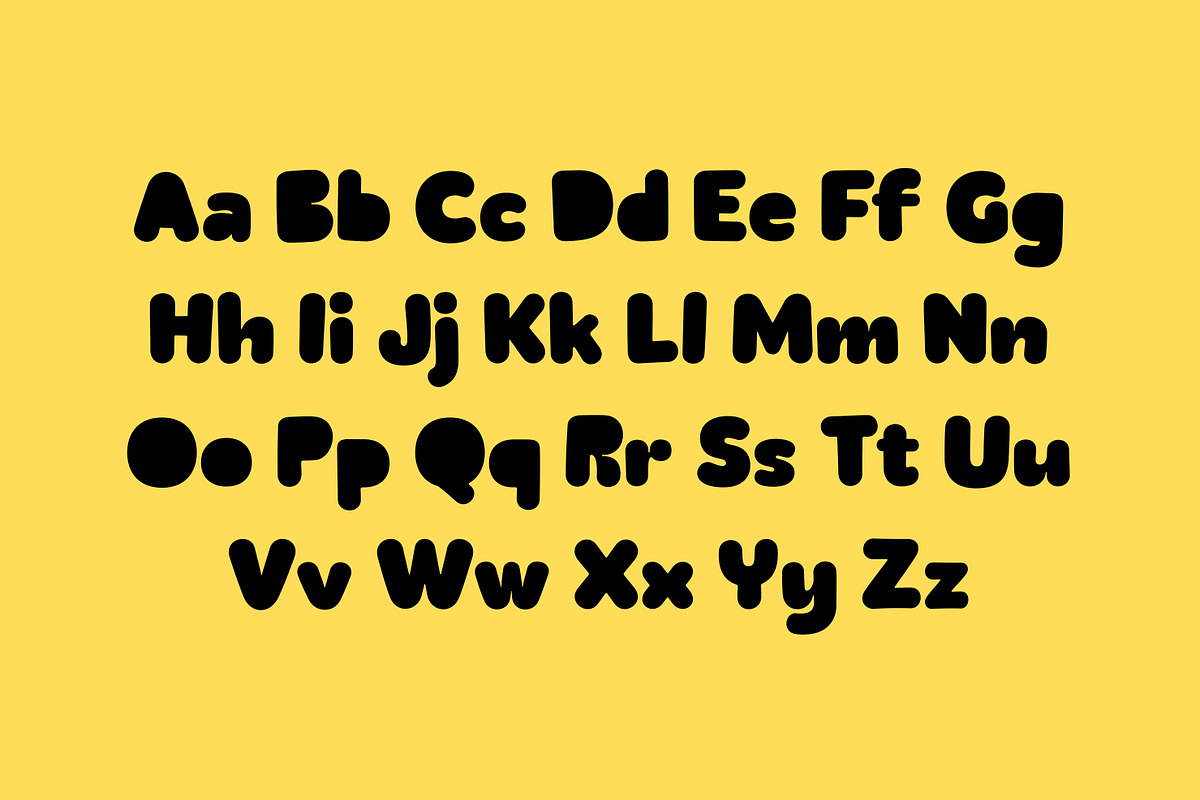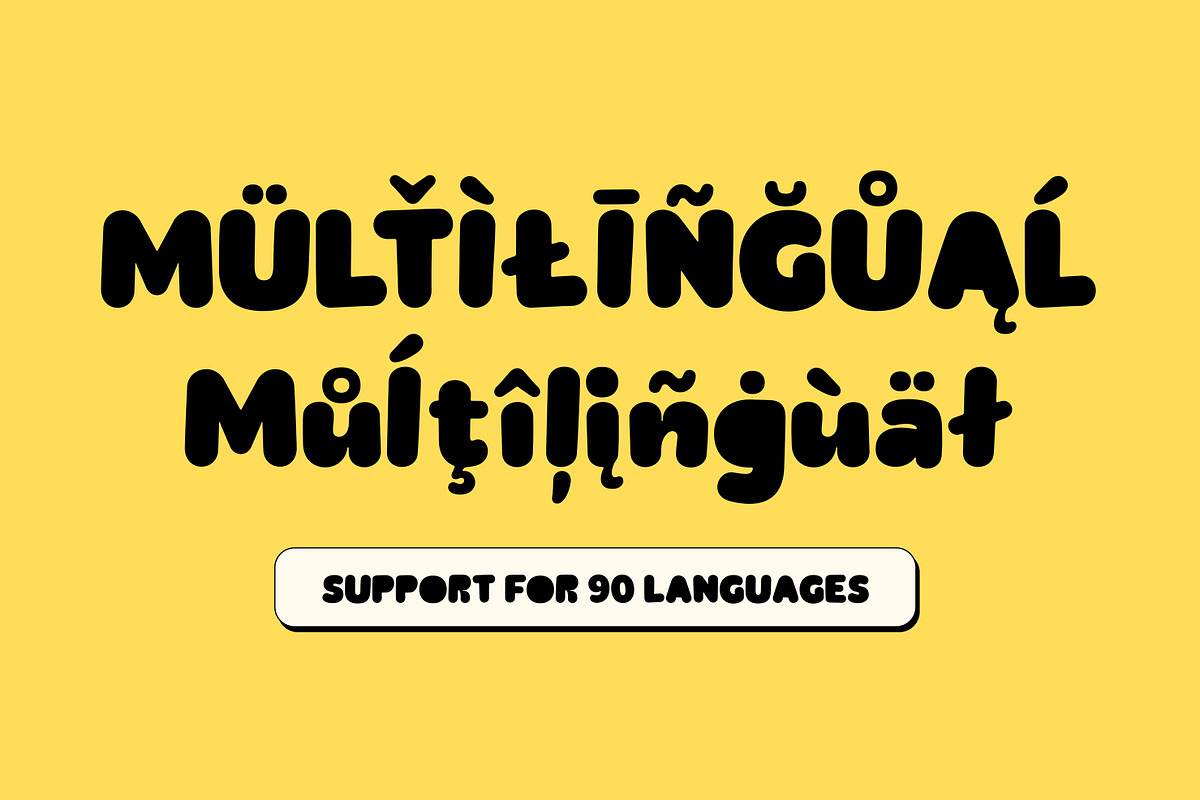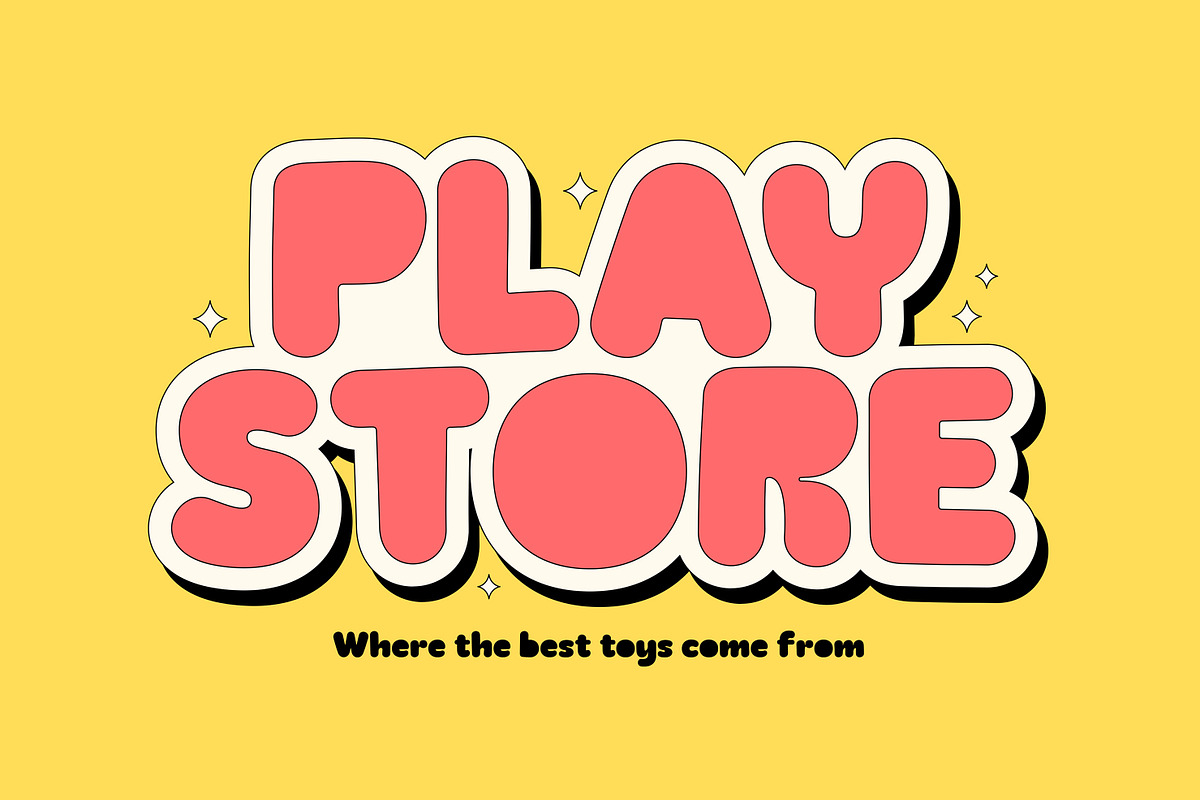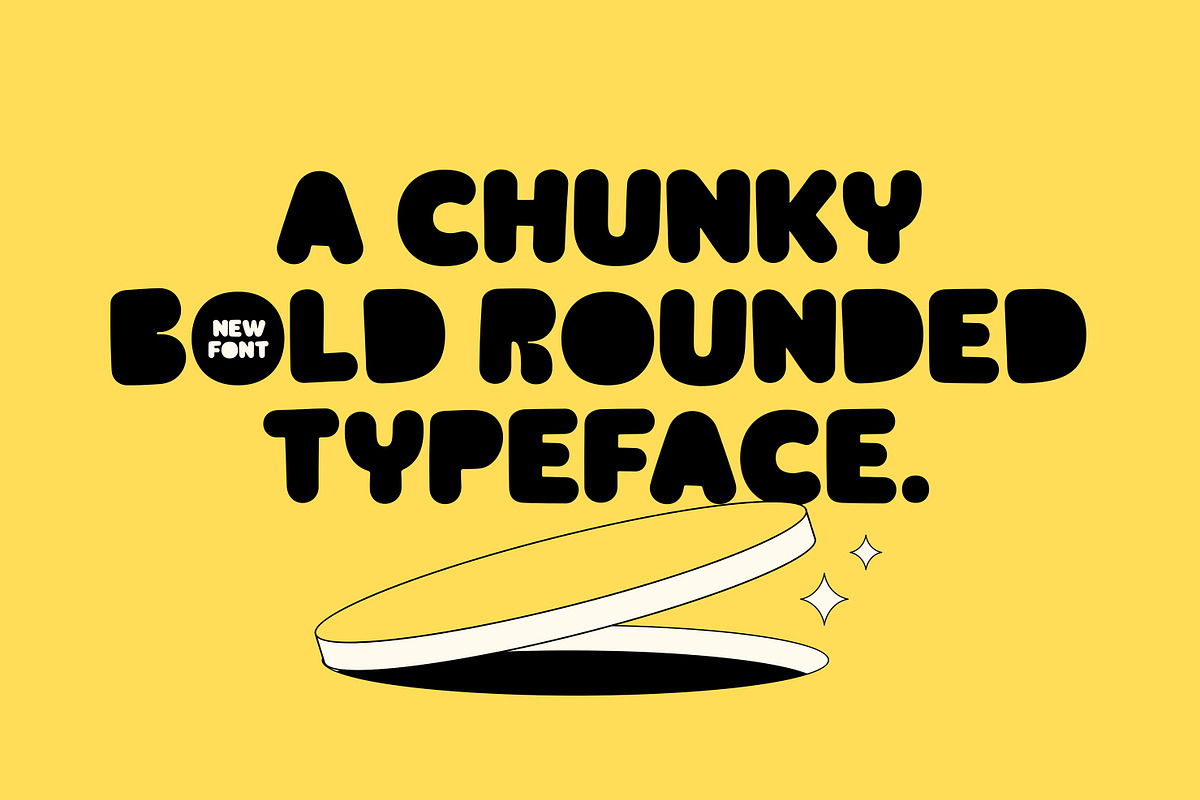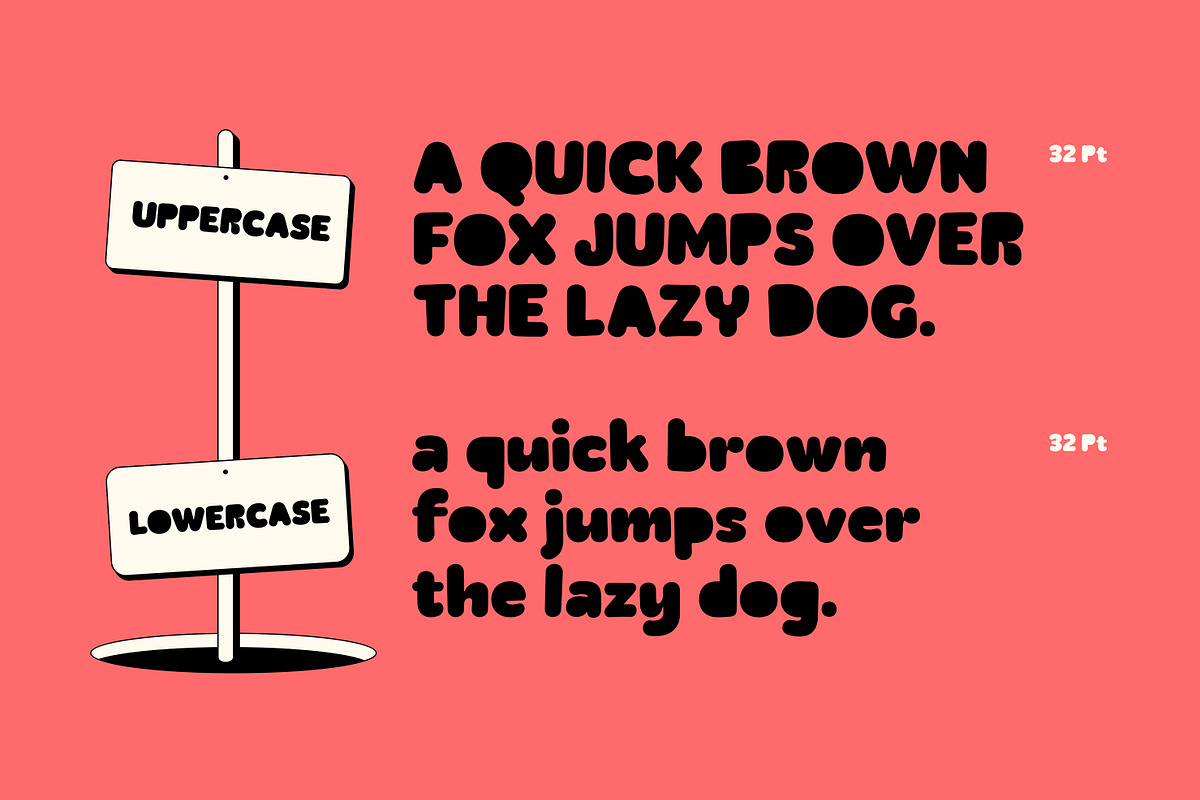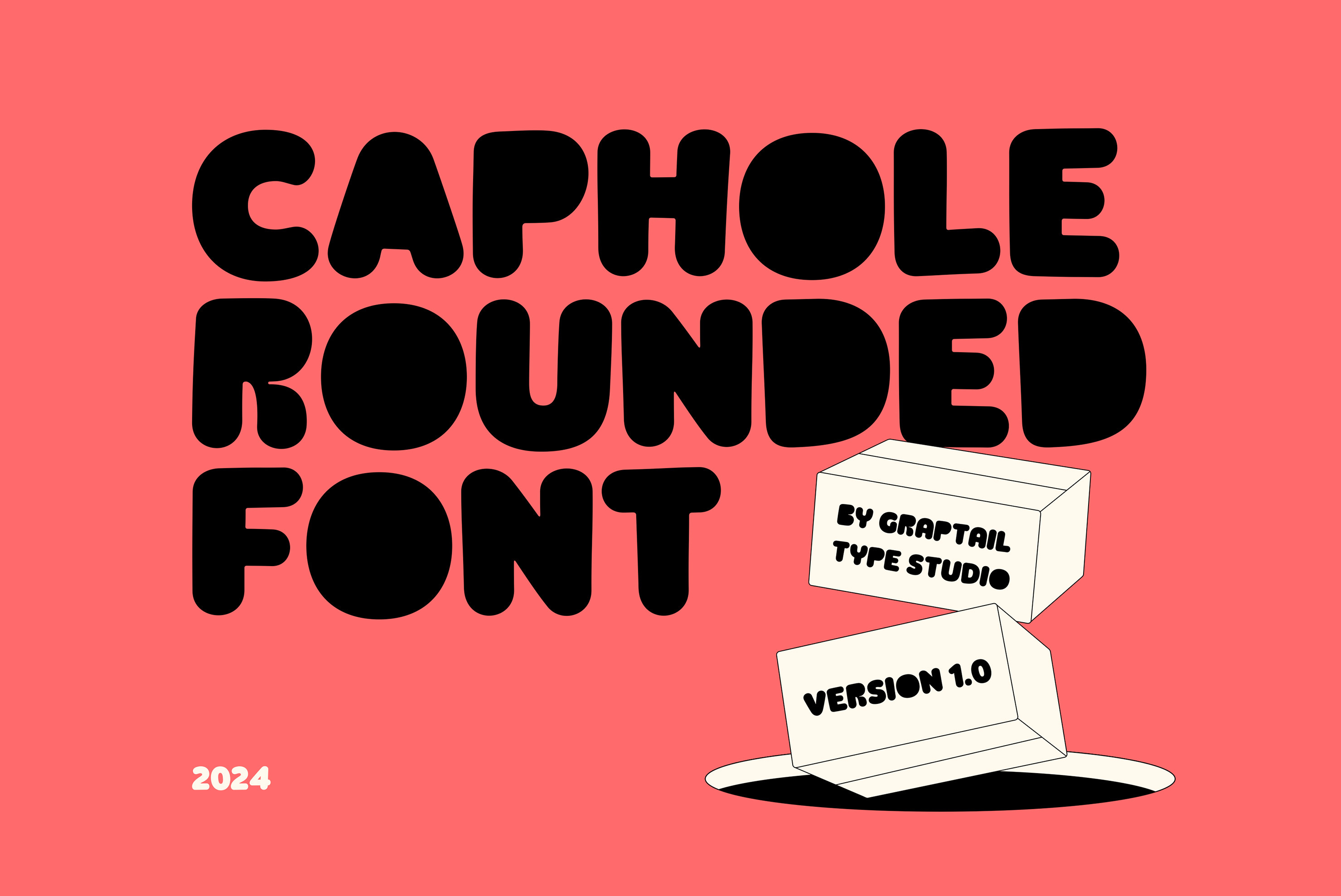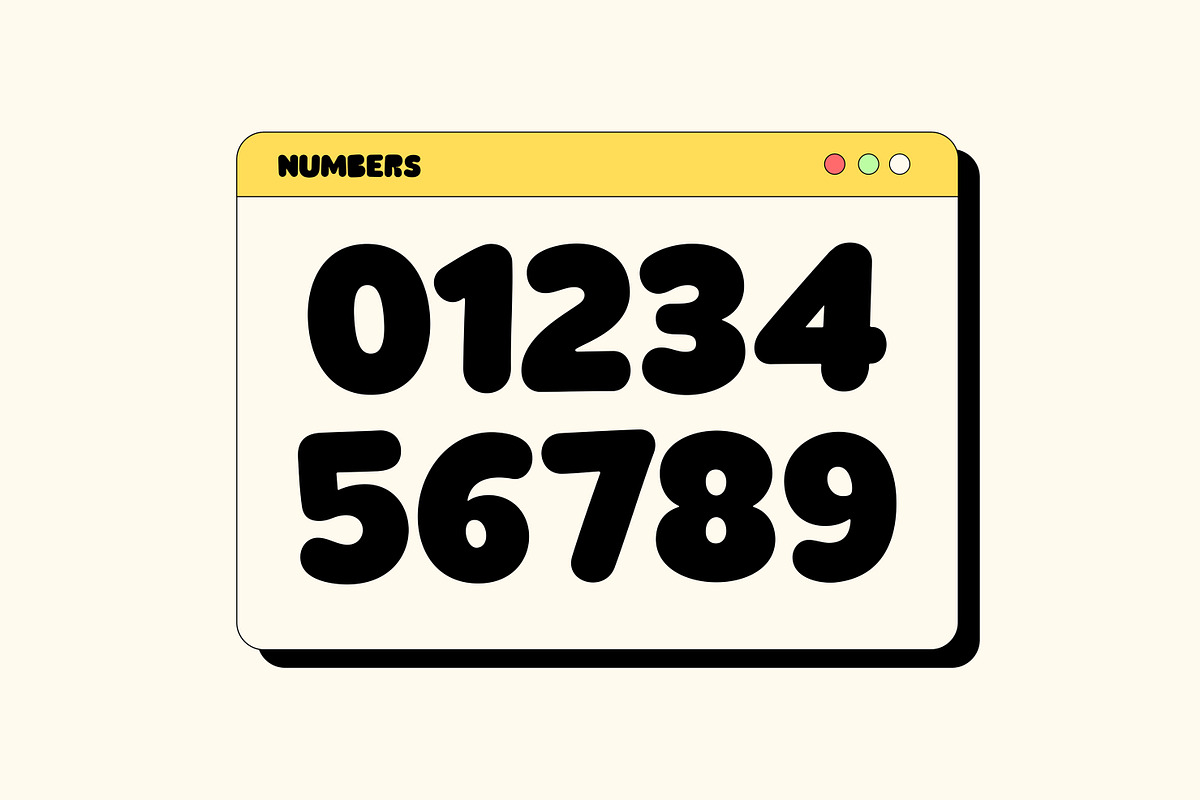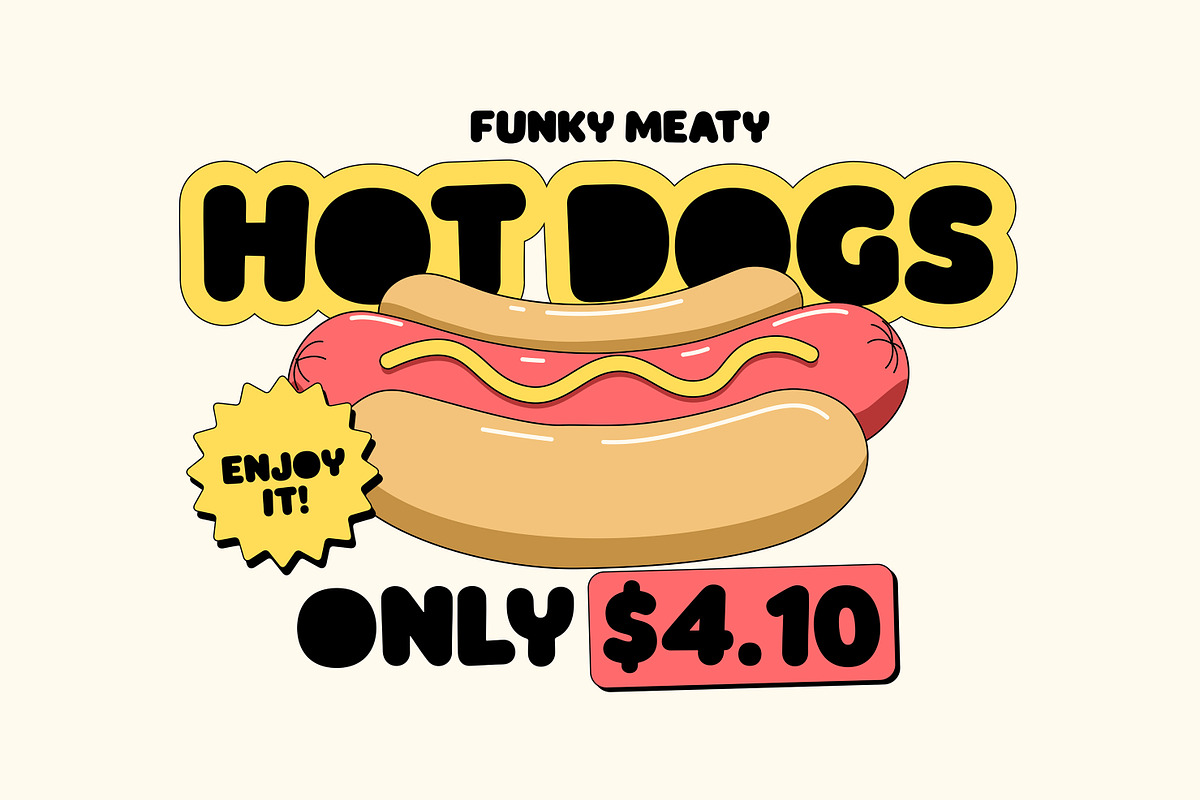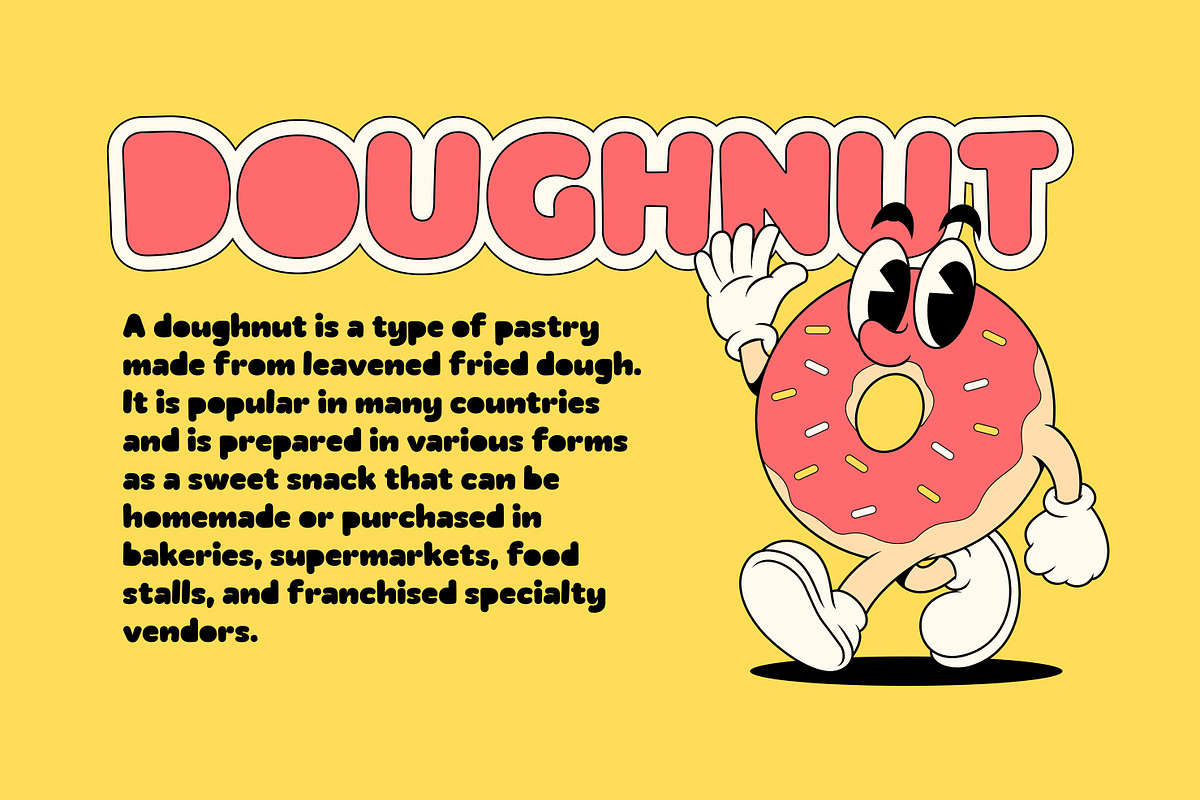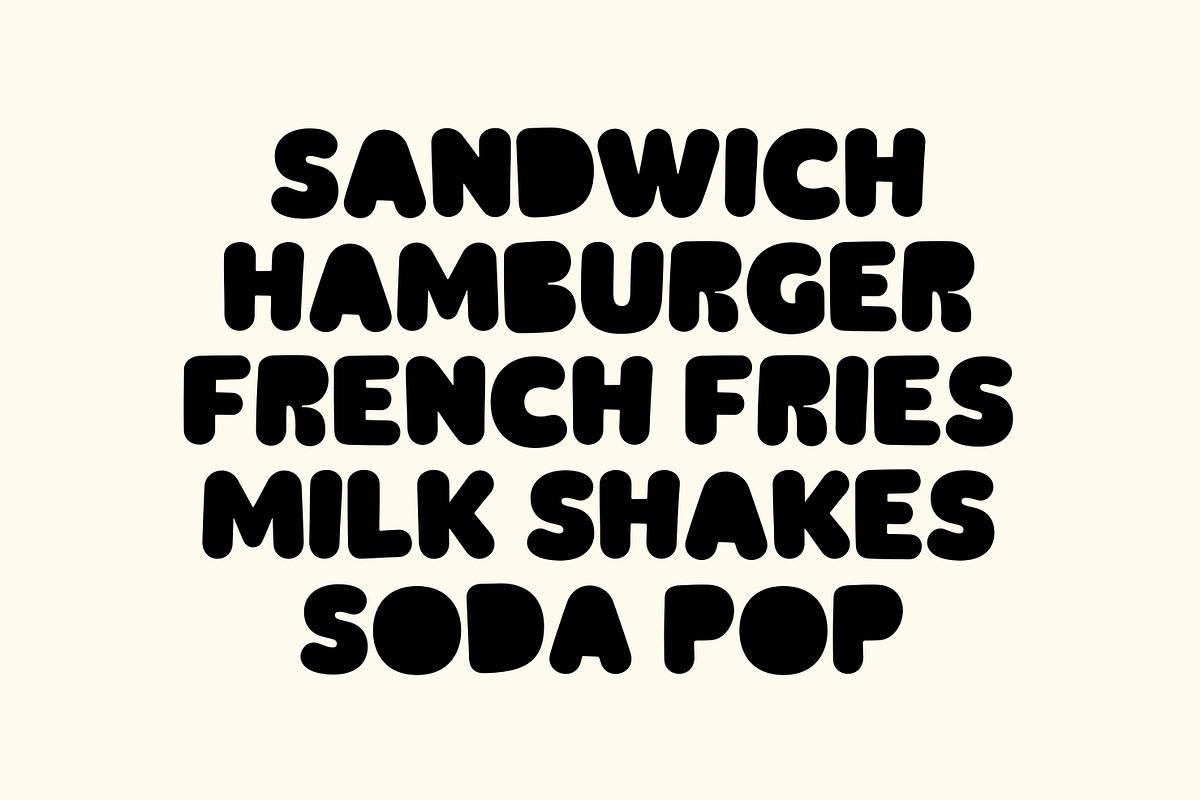
Caphole - Chunky Bold Font
Proudly Present Caphole - A Chunky Bold Rounded Type, created by Graptail.
Caphole is a font that perfectly encapsulates nostalgia, taking you back to a time when food was delicious and indulgent. Its delightfully curved shape makes it ideal for products with a retro feel.
Caphole infuses your packaging, labeling, and advertising with a delicious nostalgic appeal to bring the joy and pleasure of the past into the present. This font instantly evokes images of nostalgia, soda fountains, and food trucks that are instantly recognizable with rounded corners and chubby shapes.
This font is perfect for creating nostalgic designs, such as retro/groovy posters, advertisements, and packaging. It's also great for creating unique and eye-catching titles and headings.
Choose Caphole for a retro-style font that adds nostalgia and personality to your designs.